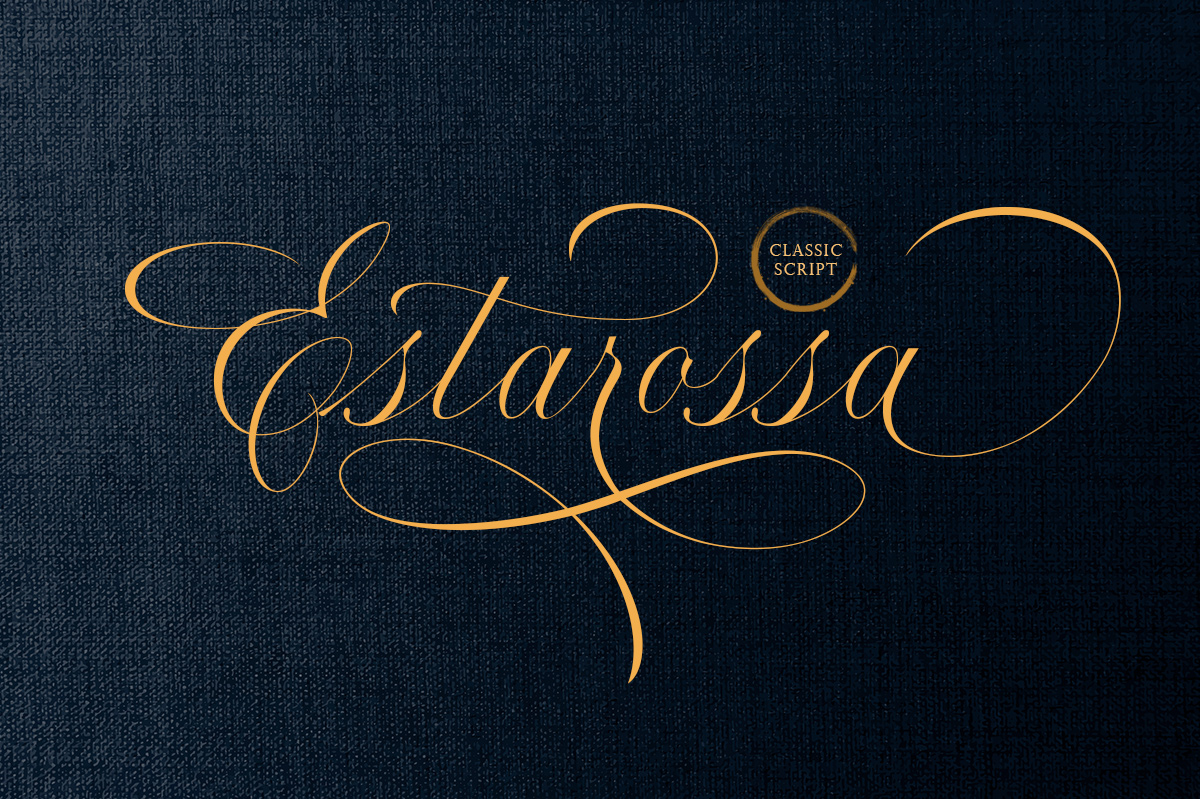
Estarossa - Classic Script Font
Perfect for wedding invitations, branding, logos, packaging, and elegant editorial projects.
The Estarossa - Classic Script Font excites designers with its timeless, flowing calligraphy style that adds sophistication and grace to any design.
Font families: Estarossa Regular, Estarossa Bold, Estarossa Italic.
The Estarossa - Classic Script Font Free Download is a beautifully crafted script typeface featuring smooth curves and refined strokes, ideal for luxury brands, formal invitations, and stylish logos.
One of the key strengths of Estarossa - Classic Script Font is its perfect balance between decorative elegance and readability, making it versatile for both display and short text applications.
In branding, Estarossa communicates class, creativity, and refinement. It pairs wonderfully with minimalist layouts, soft color palettes, and classic design elements to create a polished and memorable identity.
For digital projects, this font enhances social media graphics, blog headers, and digital invitations, offering a sophisticated and graceful touch.